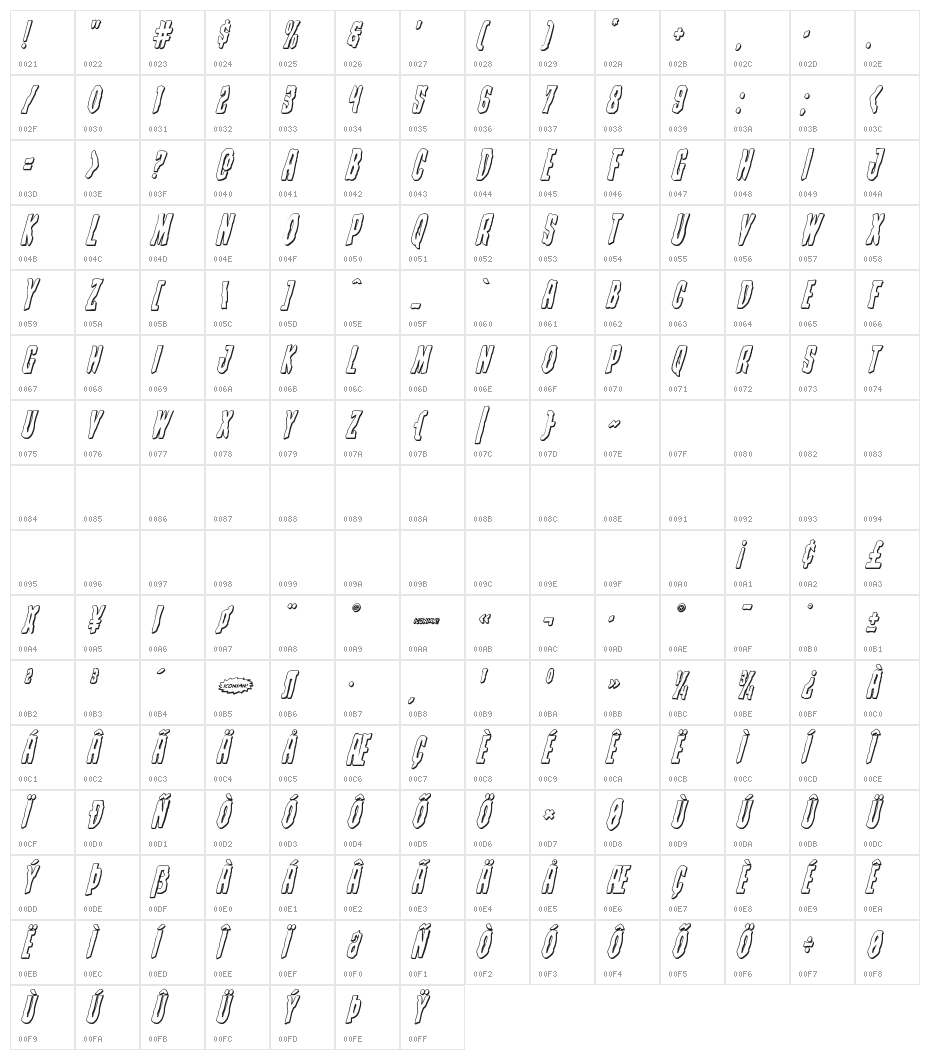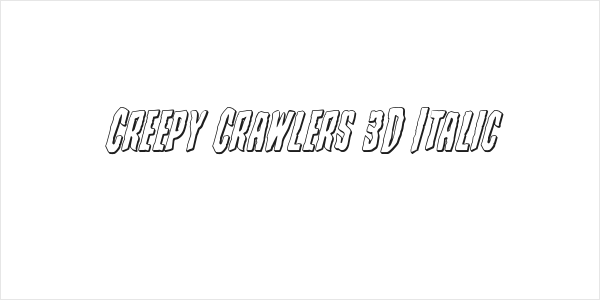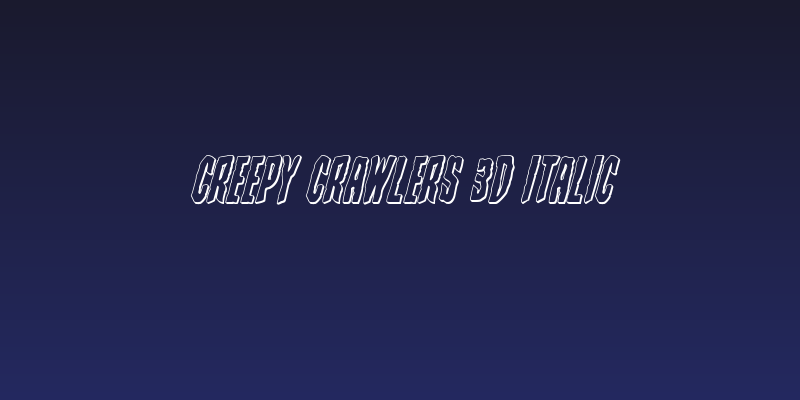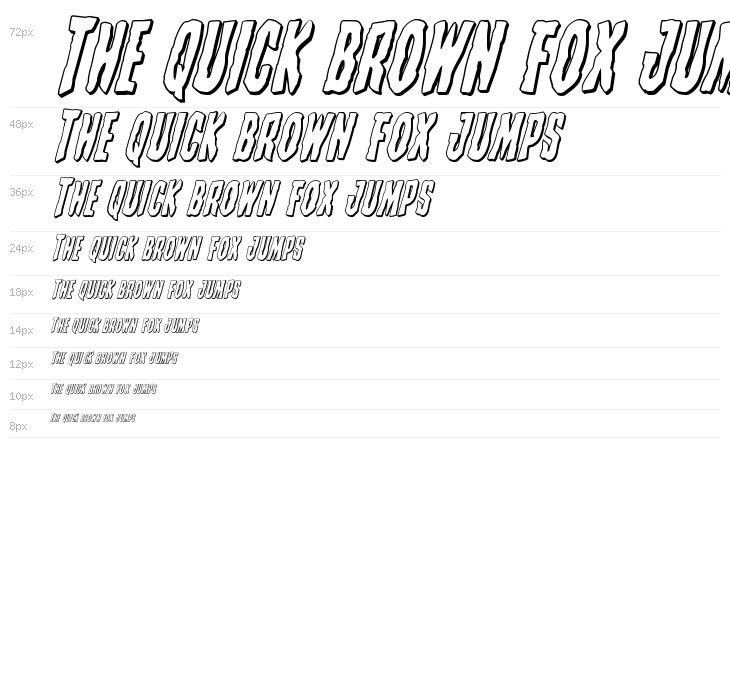
Creepy Crawlers 3D Italic Font
Creepy Crawlers 3D Italic Description
This font features a bold, three-dimensional design with an italic slant, giving it a dynamic and energetic appearance. The letters are outlined, creating a shadow effect that enhances the 3D illusion. The uppercase and lowercase characters maintain a consistent style, with sharp angles and a slightly condensed form. The numerals and special characters follow the same design principles, ensuring uniformity across all glyphs. This font's playful and eye-catching style makes it suitable for creative and informal applications.
| Proposed Projects | Ideal for Halloween-themed designs, children's book covers, playful posters, and creative branding projects. |